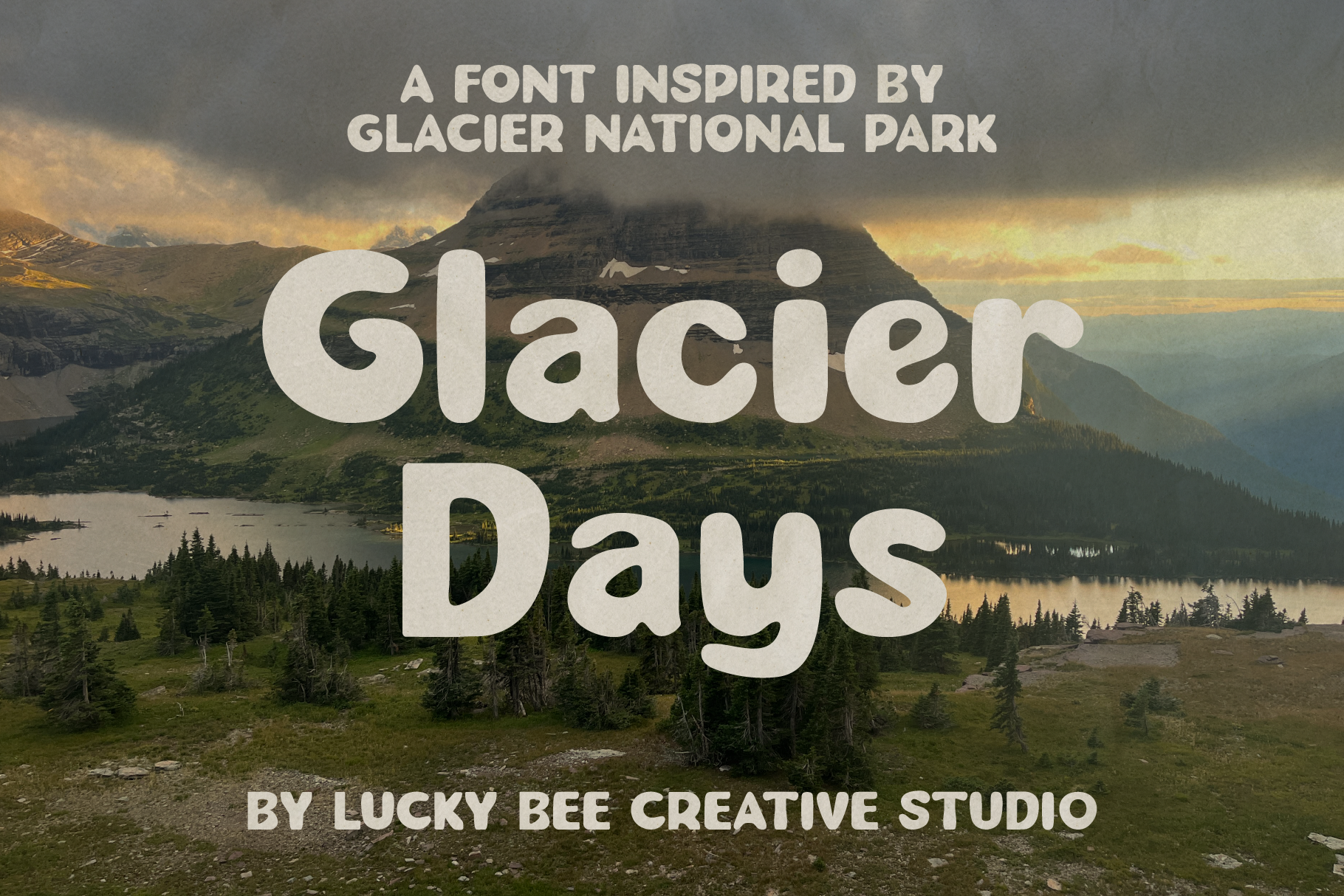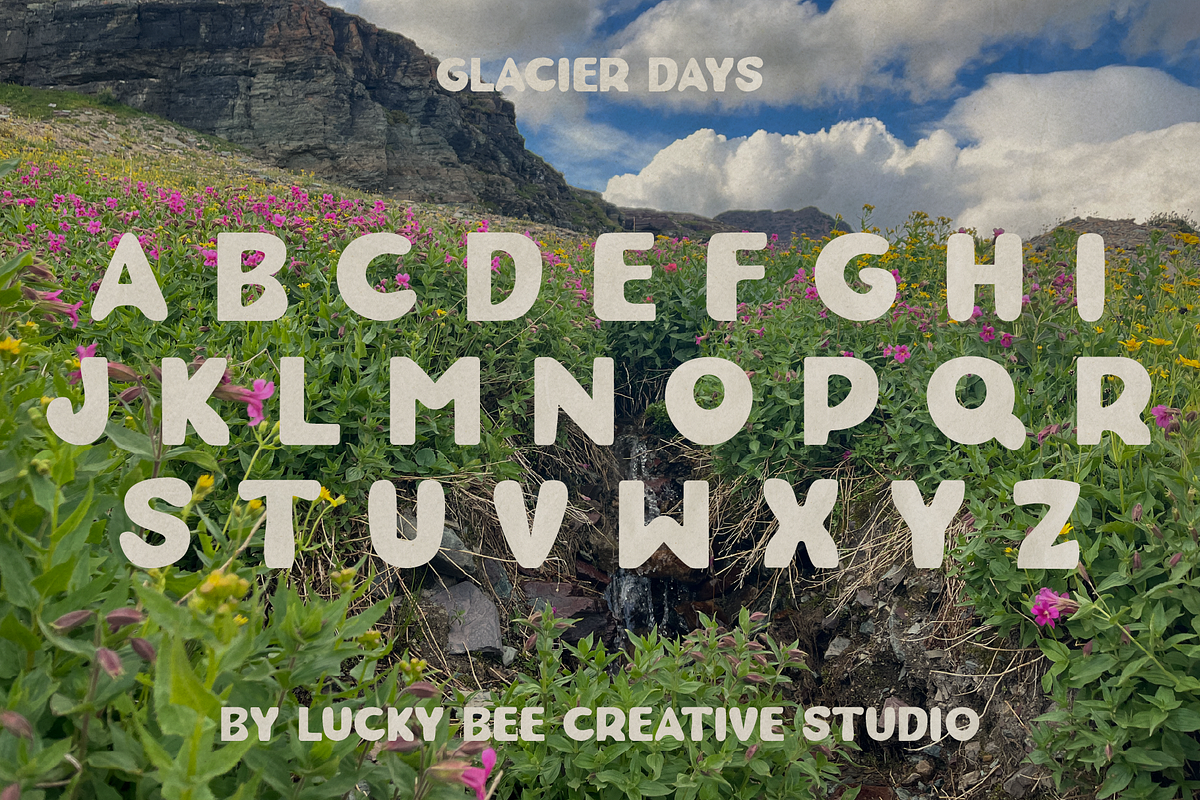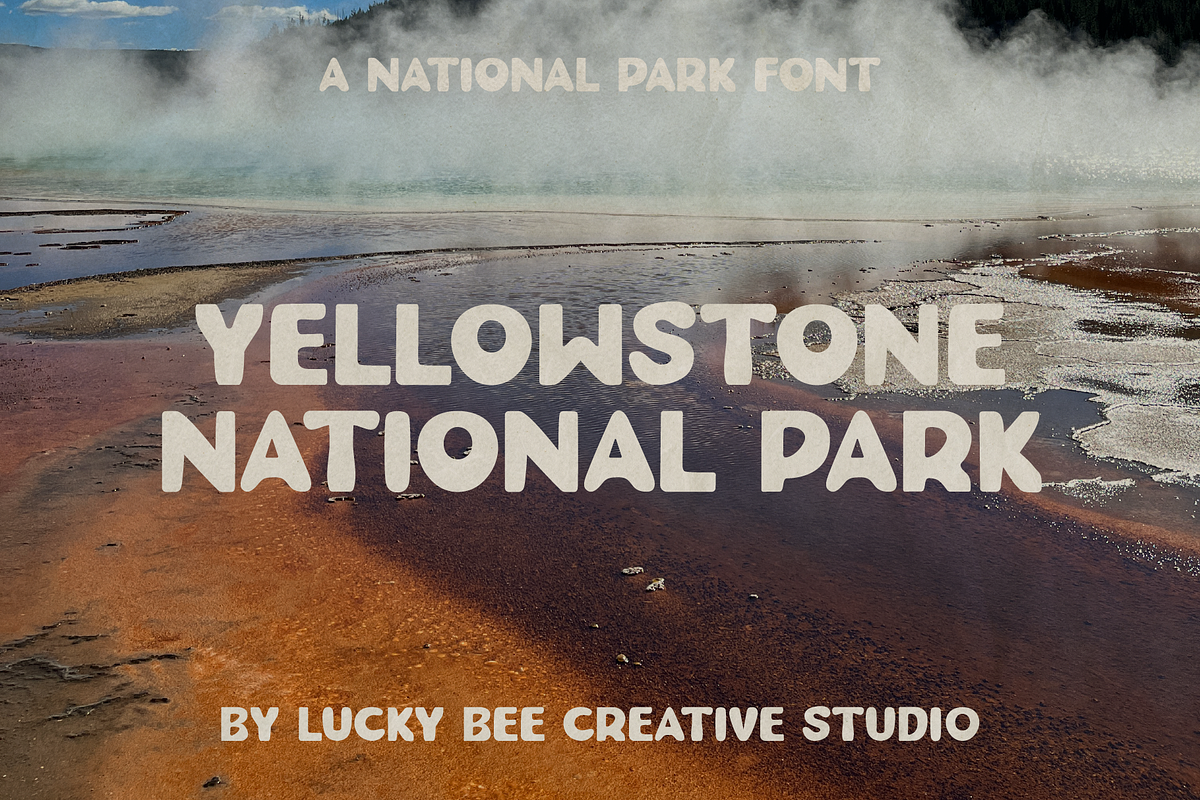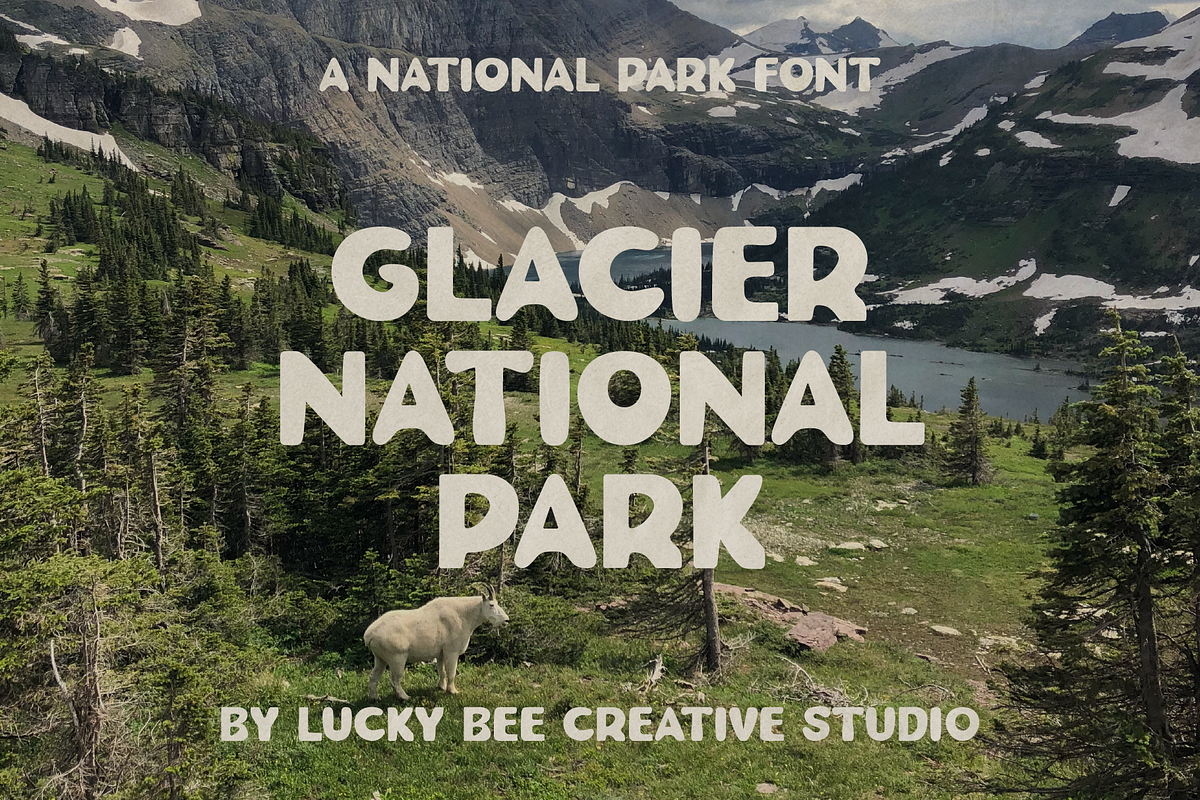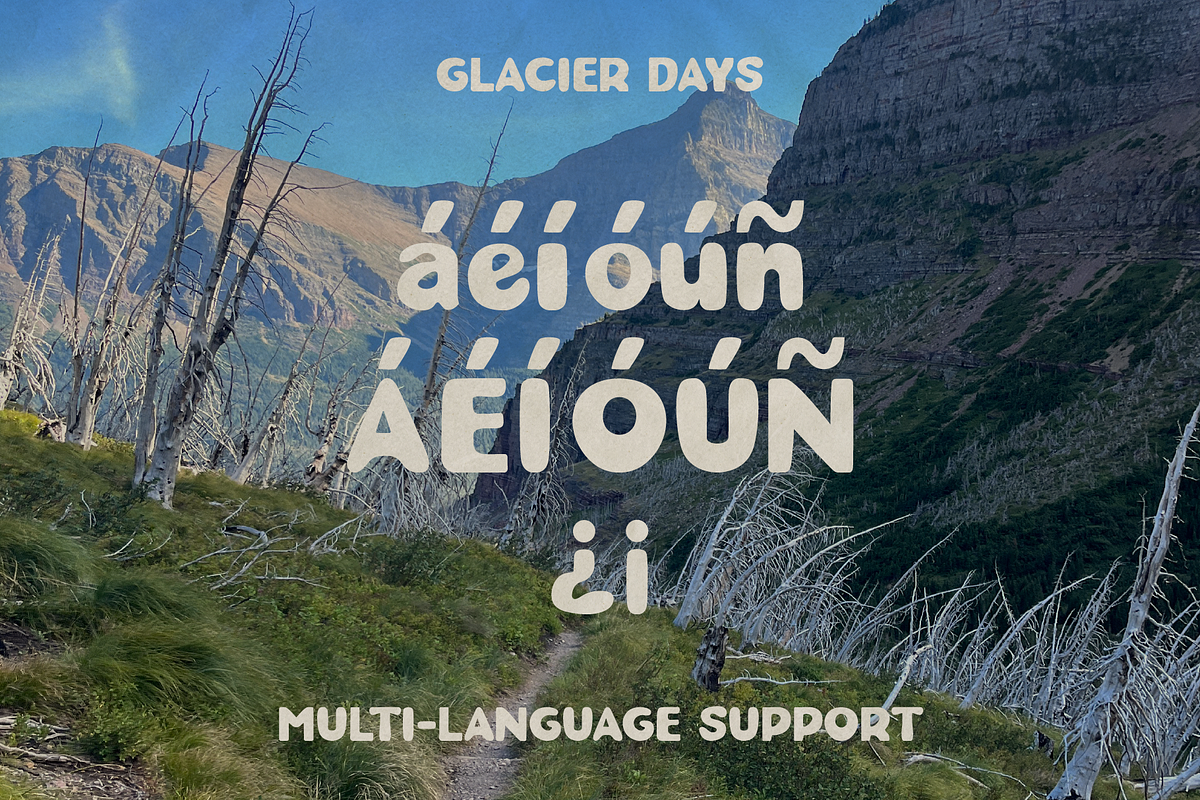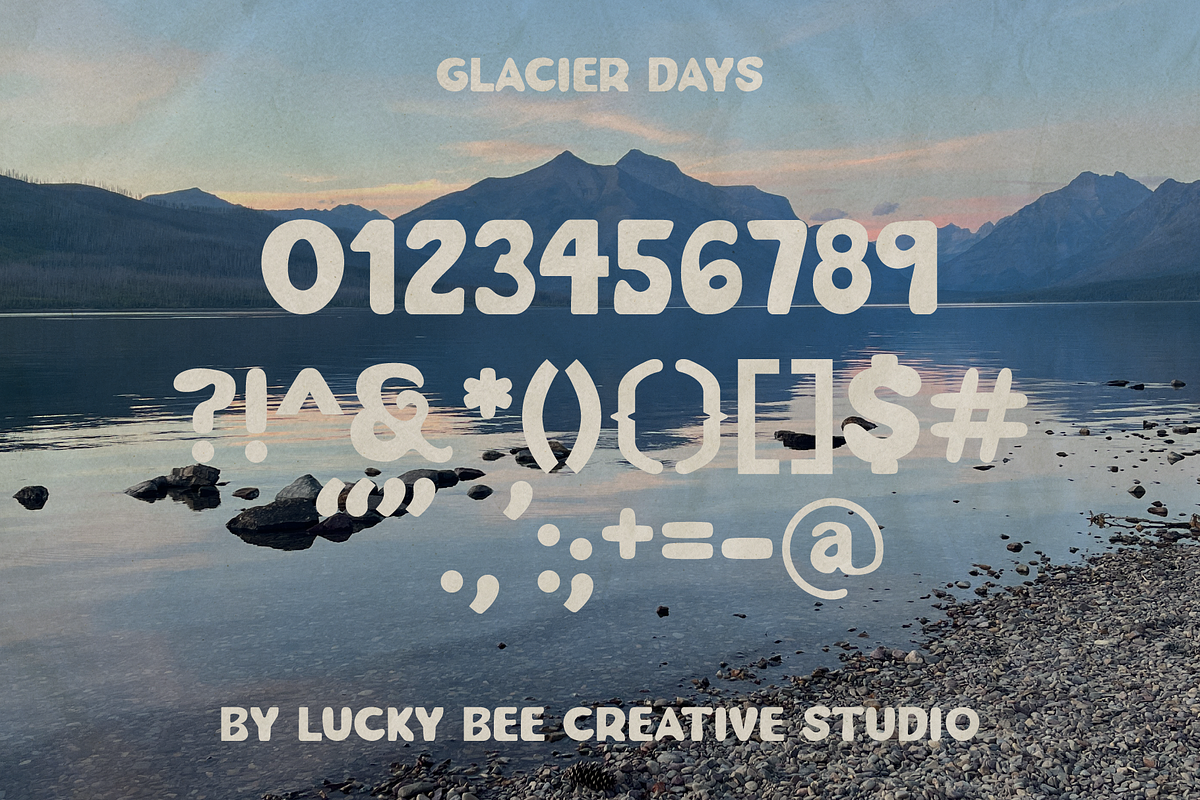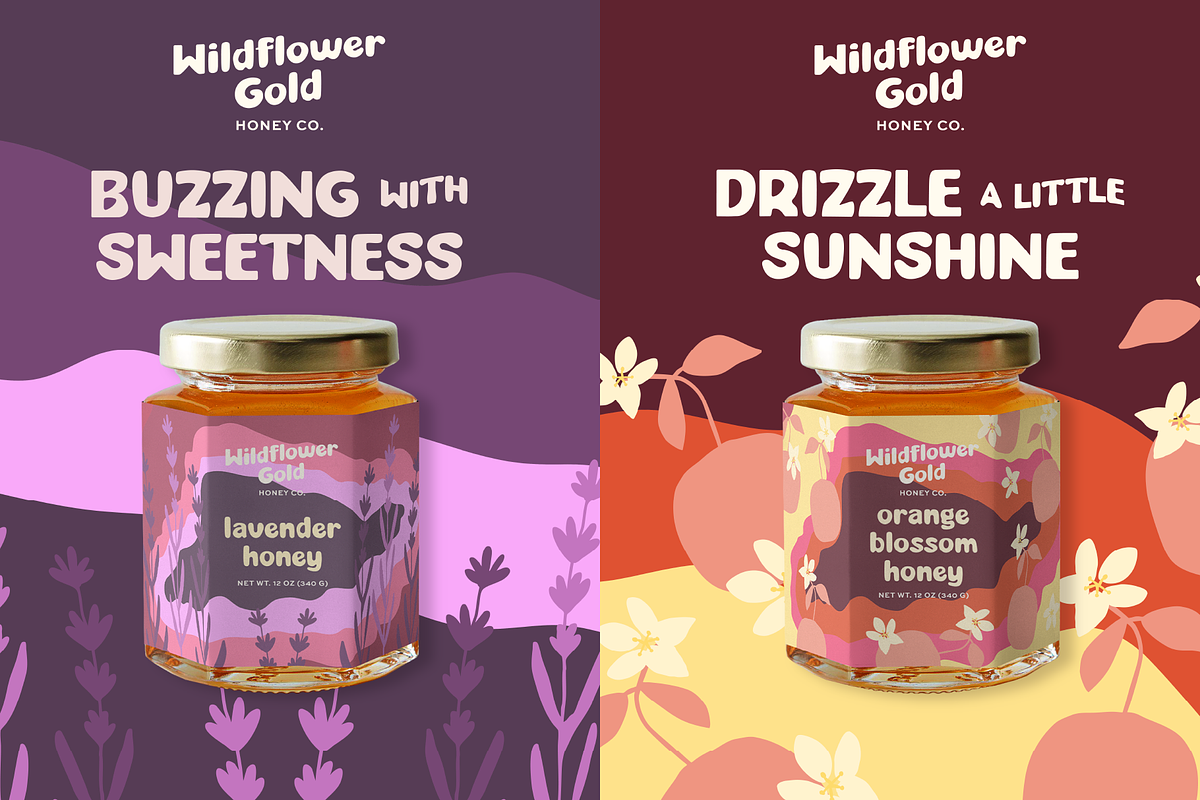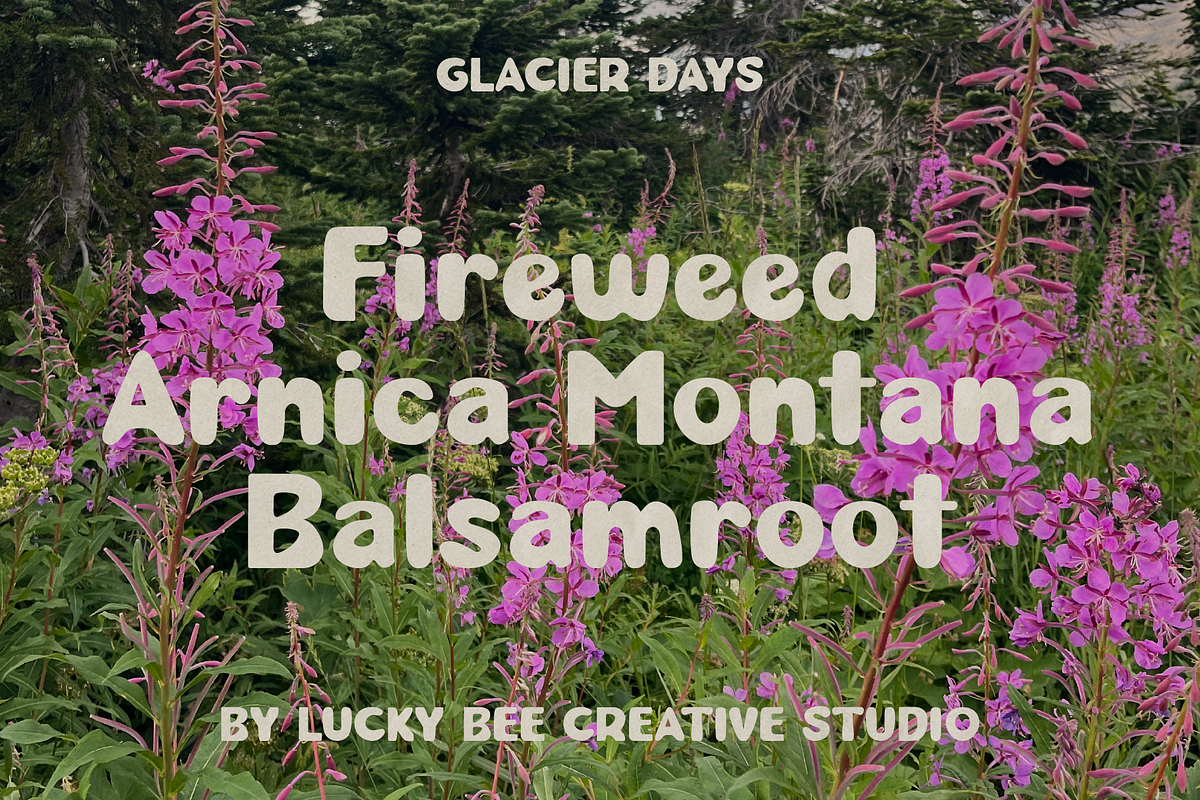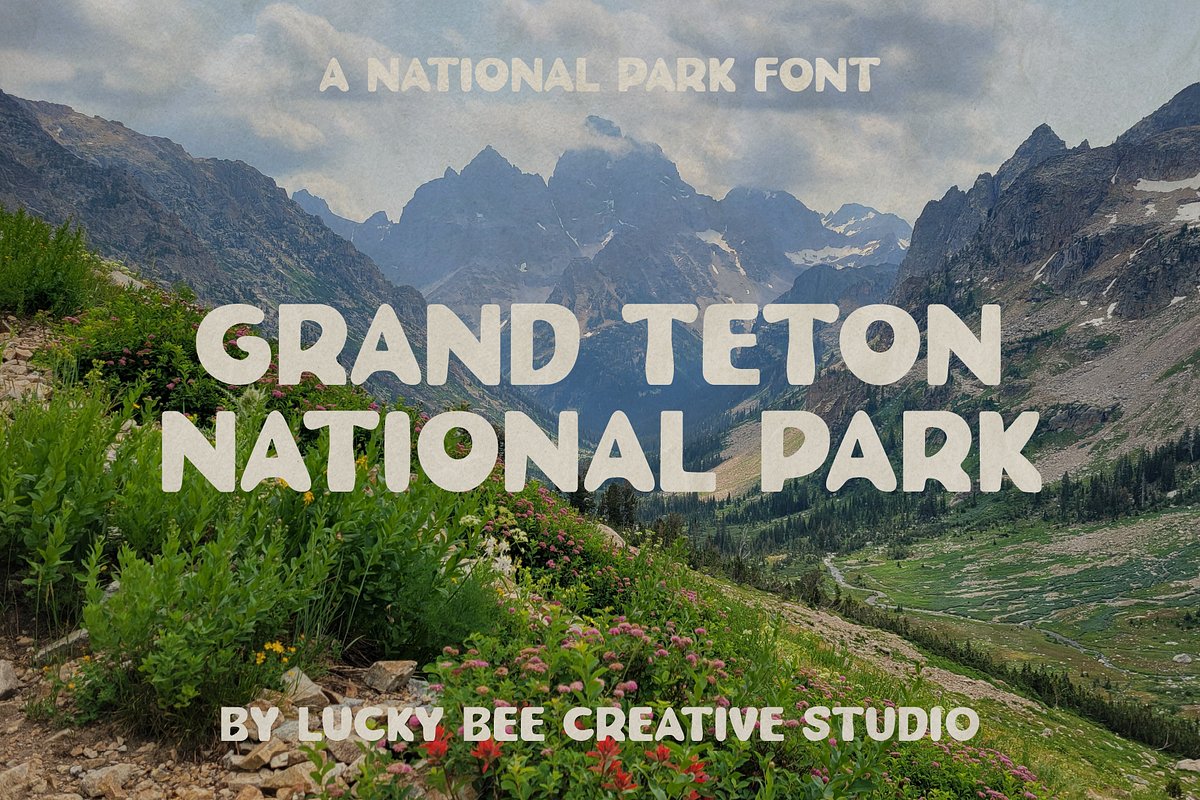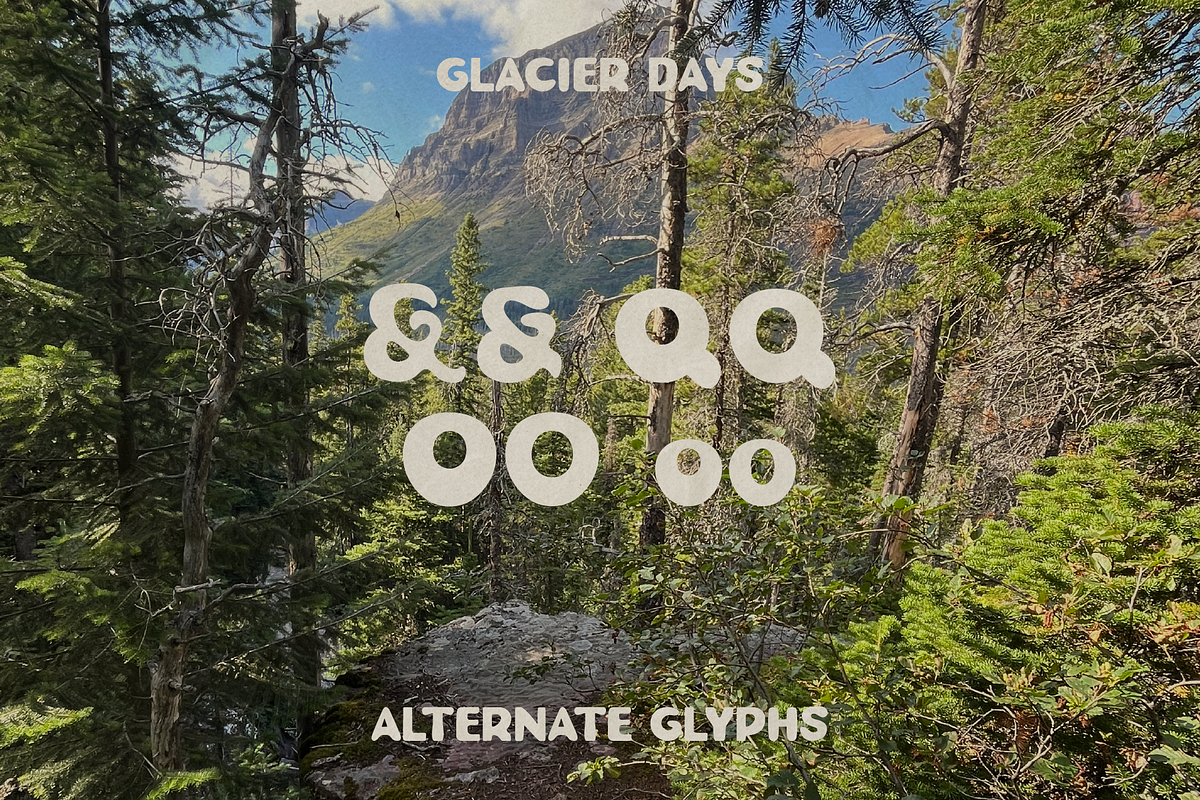
Glacier Days | Vintage, Playful Font
Introducing Glacier Days, a fun sans-serif font made for things that celebrate fun—national parks, outdoor apparel, branding, packaging design, and more!
This fun sans-serif typeface is made for signage, logos, billboards, merchandise, branding, logos, and more. Use it in all caps, sentence case, or all lowercase—you can't go wrong!
Lucky Bee Creative Studio is based out of Bozeman, Montana and I'm constantly drawing inspiration from the history and nature found in Montana. This font was inspired by a trip taken in August 2024 after camping, hiking, and eating wild huckleberries and thimbleberries galore. I (the type designer) got married in Glacier National Park several years ago, so it has a special place in my heart!